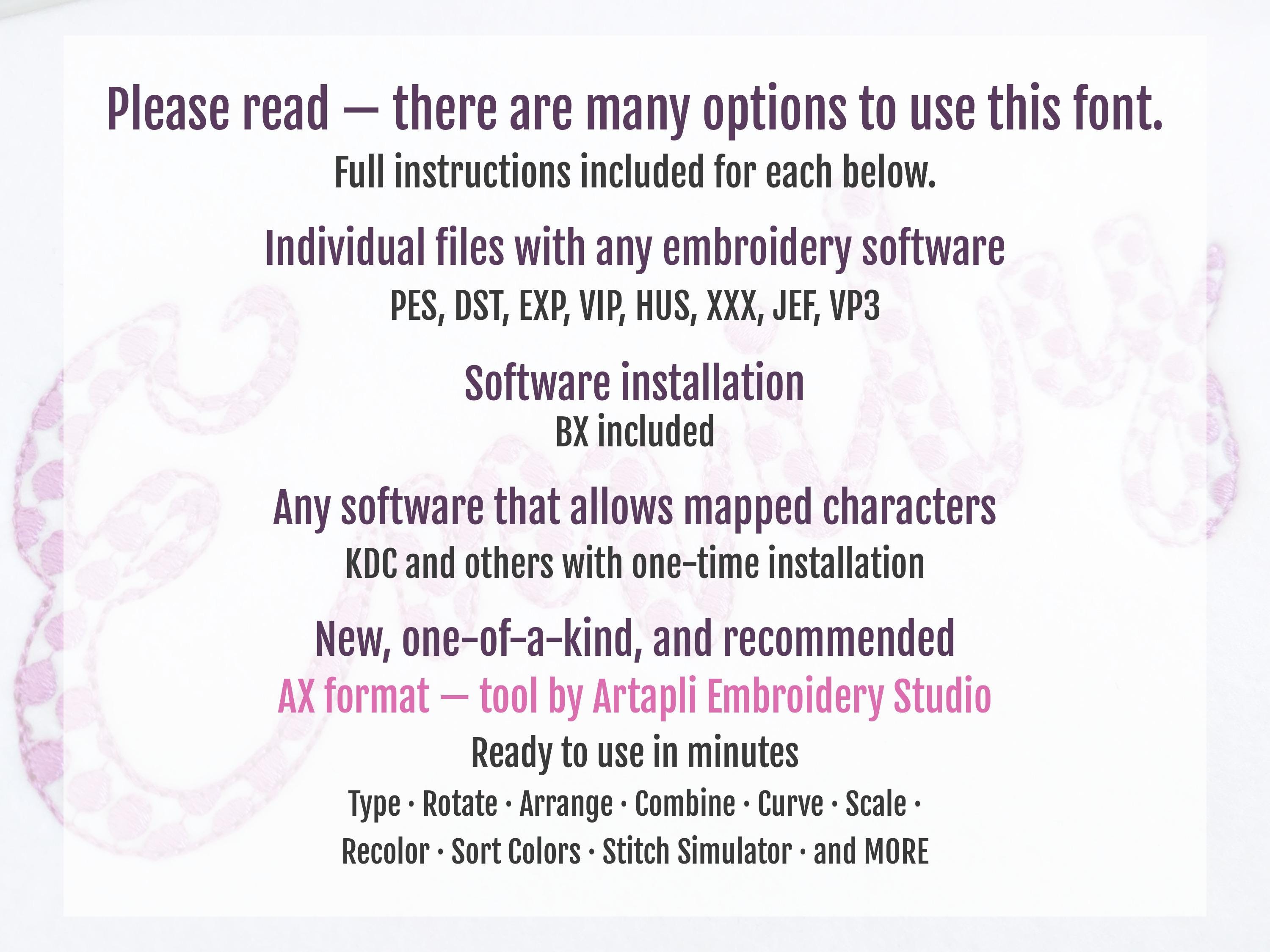
Polka Dot patterned FONT Minnie light stitch and outline machine embroidery designs script Alphabet Monogram letters sizes 1.5 up to 3.5 in
This is quick stitch transparent design, and the background fabric looks through. Stunning effect!
Polka dots are part of the embroidery.
2 inches - shown in photo
Entire alphabet uppercase and lowercase letters.